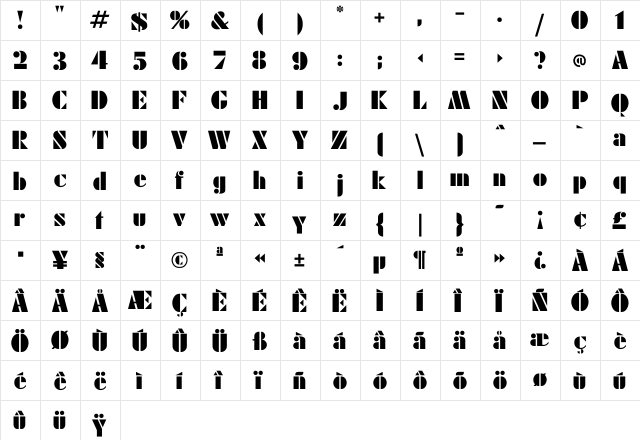
Einmal Regular Font Preview
Einmal Regular
Einmal Regular Font Details
Design Context for Einmal Typeface
Einmal takes a measured approach to typography — its balanced proportions and neutral character make it a reliable workhorse for both digital and print work.
Pro Tip: Use Einmal in both headline and body roles to test its range before committing to a single application.